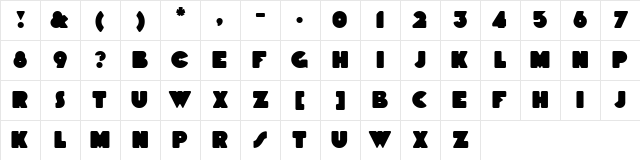
Ciclope Rounded Trial Rounded
| Foundry | NowType |
| Designer | Claudio Rocha, Mateus Franco |
Design Context for Ciclope Rounded Trial Typeface
Ciclope Rounded Trial uses gentle rounded endings to create a warm, inviting typographic personality — less corporate than geometric sans, more refined than playful display fonts.
Well-suited to UI design, mobile interfaces, and any brand that wants approachability without sacrificing clarity.
Font Pairing: Pairs well with a rounded or humanist sans for body copy, maintaining the friendly tone without relying on Ciclope Rounded Trial to carry extended reading.
Pro Tip: Use Ciclope Rounded Trial for UI elements, app interfaces, and anywhere a friendly, approachable tone needs to be maintained without sacrificing clarity.